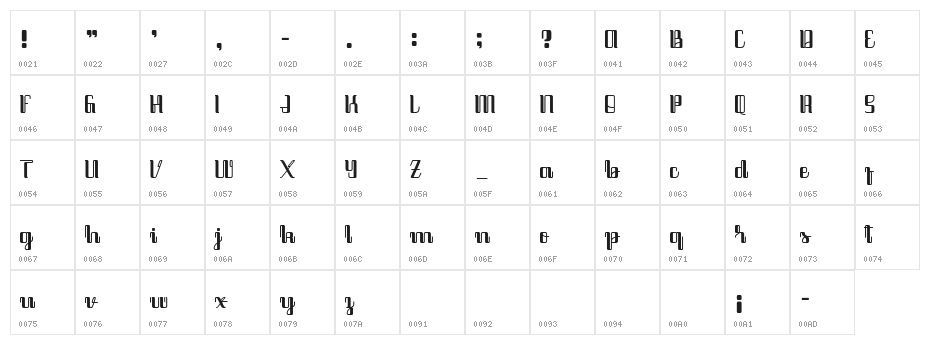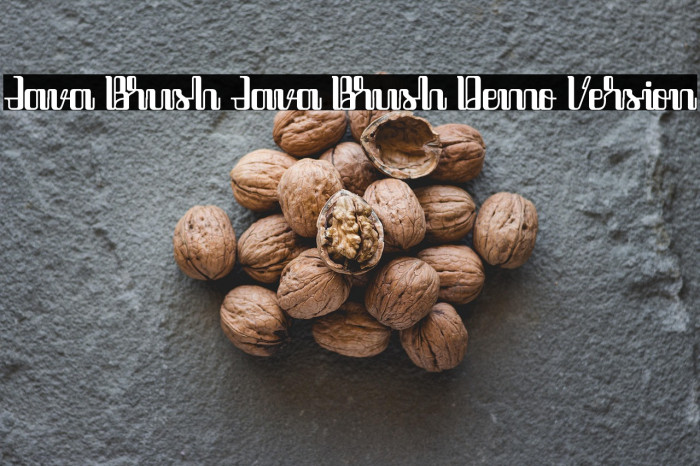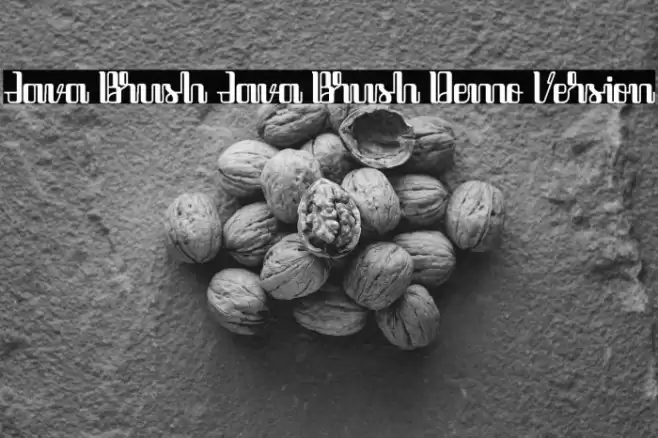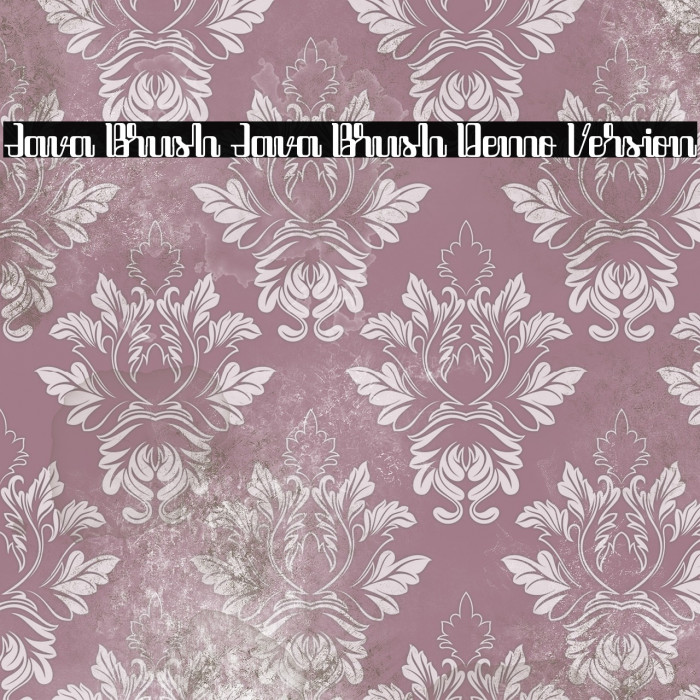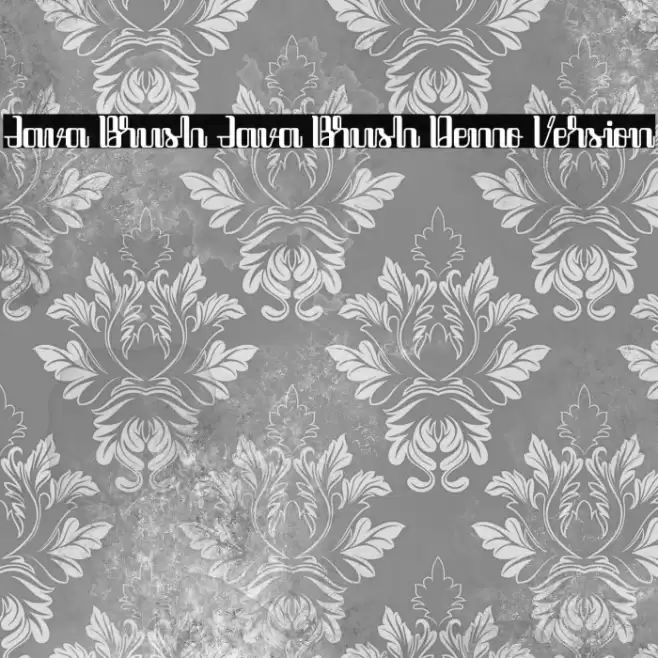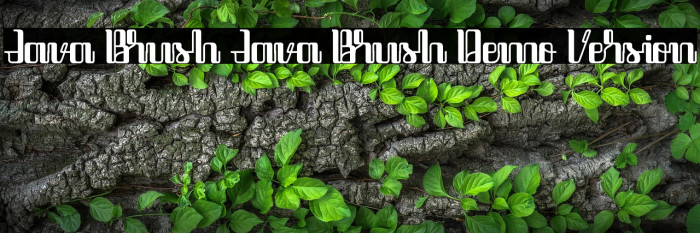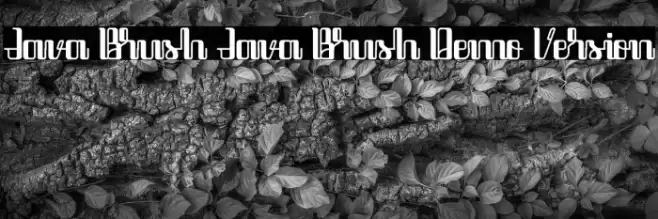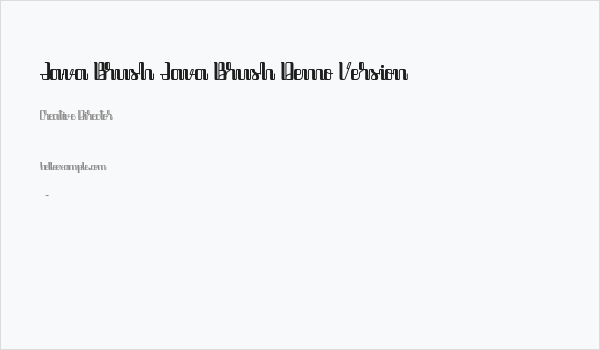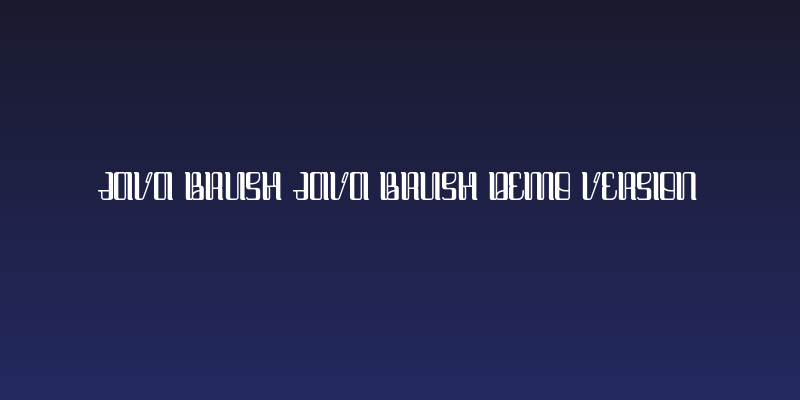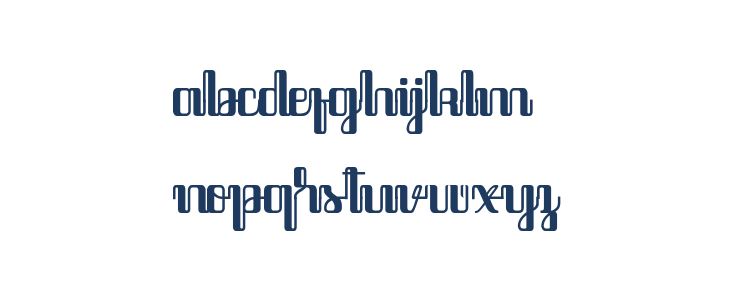
Java Brush Demo Version Font
Java Brush Demo Version Description
This font features a unique and modern design with a geometric and somewhat futuristic appearance. The characters are constructed with bold, straight lines and sharp angles, giving them a distinctive and edgy look. The uppercase letters are particularly striking, with a uniform height and width that creates a cohesive and balanced appearance. The lowercase letters maintain the same geometric style, with some characters featuring unexpected curves that add a touch of playfulness. The numbers and special characters are consistent with the overall design, making this font versatile for various applications. The spacing between characters is tight, enhancing the compact and structured feel of the font.
| Proposed Projects | Ideal for futuristic branding, tech-related projects, modern posters, and digital artwork. |